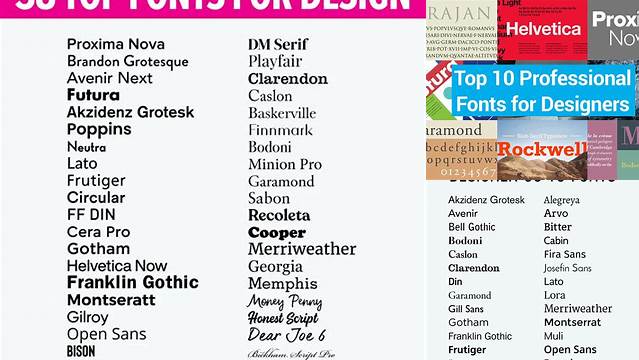
Top Fonts For Graphic Designers: Pro Guide
Choosing the right font is crucial for any graphic designer. The best fonts for graphic designers can elevate a design from good to outstanding. In this comprehensive guide, we'll explore a variety of fonts that are perfect for various design projects, ensuring you have the knowledge to make informed decisions.
1. Serif Fonts for Timeless Elegance
Serif fonts are characterized by the small decorative strokes (serifs) at the end of letters. These fonts often convey a sense of tradition, authority, and elegance. For graphic designers, understanding how to effectively use serif fonts is essential.
Choosing the Right Serif Font
Selecting the right serif font depends heavily on the project's overall tone and message. For instance, Times New Roman is a classic choice for formal documents, while Garamond offers a more refined, literary feel. Designers should consider the font's readability, especially in smaller sizes, and its compatibility with other design elements.
Best Uses of Serif Fonts
Serif fonts excel in print materials such as books, magazines, and newspapers due to their readability in large blocks of text. They are also suitable for creating logos and branding materials that require a touch of sophistication. When using serif fonts, pay attention to kerning and leading to ensure optimal readability and visual appeal. Graphic designers often use serif fonts to evoke trust and credibility.
Popular Serif Font Examples
Some popular serif fonts include:
- Times New Roman: A widely used and highly legible font.
- Garamond: Known for its elegance and readability.
- Georgia: Designed for screen readability, making it ideal for websites.
- Baskerville: A classic font that exudes sophistication.
- Palatino: A humanist serif font that combines readability with a touch of personality.
2. Sans-Serif Fonts for Modern Simplicity
Sans-serif fonts lack the decorative strokes found in serif fonts, giving them a cleaner, more modern appearance. These fonts are favored for their simplicity and readability, making them a staple in contemporary design. The best fonts for graphic designers often include a variety of sans-serif options.
Understanding Sans-Serif Typography
Sans-serif fonts are versatile and work well in a variety of applications, from web design to branding. They are particularly effective in digital environments where readability is paramount. Designers should be aware of the different styles within the sans-serif category, such as geometric, humanist, and grotesque, each offering a unique feel.
Effective Use in Design Projects
In web design, sans-serif fonts are commonly used for body text, navigation menus, and headings. They provide a clean and accessible reading experience, especially on screens with varying resolutions. For branding, sans-serif fonts can convey a sense of modernity, innovation, and clarity. It’s essential to choose a sans-serif font that aligns with the brand's personality and values.
Examples of Popular Sans-Serif Fonts
- Helvetica: A widely recognized and highly versatile font.
- Arial: A common and easily readable font.
- Futura: A geometric sans-serif font with a modern feel.
- Open Sans: Optimized for readability on screens.
- Roboto: A modern sans-serif font designed by Google, perfect for UI design.
3. Display Fonts for Unique Branding
Display fonts are designed to catch the eye and make a statement. They are often used for headlines, logos, and other prominent design elements where visual impact is crucial. The best fonts for graphic designers include a curated selection of display fonts to add personality to projects.
Characteristics of Effective Display Fonts
Effective display fonts are unique, memorable, and reflective of the brand's identity. They should be used sparingly to avoid overwhelming the design. Consider factors such as the font's weight, style, and overall visual impact when selecting a display font. Balance is key when incorporating these fonts into a design.
Applications in Branding and Advertising
Display fonts are ideal for branding because they help create a distinctive visual identity. They can be used in logos, website headers, and marketing materials to capture attention and convey a specific message. In advertising, display fonts can make a product or service stand out, encouraging engagement and recall.
Notable Display Font Choices
- Impact: A bold and attention-grabbing font.
- Cooper Black: A fun and retro-inspired font.
- Lobster: A script font with a vintage feel.
- Bebas Neue: A clean and modern sans-serif display font.
- Playfair Display: An elegant serif display font for headlines.
4. Script Fonts for Personal Touches
Script fonts mimic the look of handwriting, adding a personal and elegant touch to designs. These fonts can range from formal and calligraphic to playful and casual, making them versatile for various creative projects. For graphic designers, mastering the use of script fonts is essential.
Different Styles of Script Fonts
There are various styles of script fonts, including formal scripts (resembling traditional calligraphy), casual scripts (more relaxed and handwritten), and brush scripts (mimicking brush strokes). Each style offers a different aesthetic, so it’s crucial to choose one that aligns with the project’s tone and message.
Best Practices for Using Script Fonts
Script fonts are best used sparingly, typically for headings, invitations, or decorative elements. Overusing script fonts can reduce readability and detract from the overall design. Ensure the script font is legible and pair it with a simpler font for body text to create balance and visual harmony.
Popular Script Font Options
- Brush Script MT: A classic and widely recognized script font.
- Edwardian Script ITC: An elegant and formal script font.
- Pacifico: A casual and friendly script font.
- Great Vibes: A sophisticated script font for invitations.
- Allura: A modern script font with a natural flow.
5. Monospace Fonts for Coding and Technical Designs
Monospace fonts are characterized by each character occupying the same amount of horizontal space. This uniformity makes them ideal for coding, technical documentation, and designs that require a structured, consistent appearance. The best fonts for graphic designers sometimes include monospace options for specific projects.
Characteristics of Monospace Typography
The fixed-width nature of monospace fonts enhances readability in code editors and terminals, where alignment is crucial. While not typically used for body text in general design, monospace fonts can add a unique, technical aesthetic to certain projects. Graphic designers should consider the font's legibility and overall visual impact.
When to Use Monospace Fonts
Monospace fonts are commonly used in coding environments, command-line interfaces, and typewriting simulations. They can also be effective in designs that aim to convey a sense of precision, technology, or retro computing. Experiment with monospace fonts to create a distinctive look in your projects.
Monospace Font Recommendations
- Courier New: A standard monospace font often used in coding.
- Consolas: Designed for improved readability in code editors.
- Source Code Pro: A highly legible monospace font by Adobe.
- Roboto Mono: A modern and clean monospace font.
- Fira Mono: A popular open-source monospace font.
6. Geometric Fonts for Modern Aesthetics
Geometric fonts are based on simple geometric shapes, such as circles, squares, and triangles. This gives them a clean, modern, and minimalist appearance. They are often used in branding, logos, and designs that require a contemporary feel. The best fonts for graphic designers understand the power of geometric fonts in modern aesthetics.
Key Traits of Geometric Fonts
Geometric fonts are known for their precise and symmetrical forms. They exude a sense of order and efficiency, making them suitable for conveying a sense of innovation and clarity. Designers should consider the font's x-height, weight, and overall balance when incorporating geometric fonts into a design.
Applying Geometric Fonts in Design
These fonts work well in logos, website headers, and branding materials. They can also be used for body text, provided the font is legible at smaller sizes. Geometric fonts pair well with other clean, minimalist design elements. They are particularly effective in industries such as technology, finance, and architecture.
Popular Geometric Fonts
- Futura: A classic geometric sans-serif font.
- Avenir: A humanist geometric font with a modern feel.
- Circular: A popular choice for UI design and branding.
- Gotham: A versatile geometric font used by many brands.
- Montserrat: A geometric sans-serif font inspired by urban typography.
7. Humanist Fonts for Readability and Warmth
Humanist fonts are inspired by traditional calligraphy and handwriting, giving them a warm, approachable, and highly readable quality. They combine the structure of sans-serif fonts with the organic feel of serif fonts. The best fonts for graphic designers recognize humanist fonts for their unique balance.
Characteristics of Humanist Fonts
Humanist fonts are characterized by their subtle variations in stroke weight and their open, generous forms. They are designed to be easy on the eyes, making them ideal for extended reading. Designers should consider the font's overall character and how it contributes to the project's message.
Ideal Use Cases for Humanist Fonts
Humanist fonts are excellent for body text in books, magazines, and websites. They are also suitable for branding materials that require a friendly and approachable tone. They can be used in a variety of industries, including education, healthcare, and non-profit organizations.
Top Humanist Font Selections
- Open Sans: A widely used and highly readable humanist font.
- Roboto: A versatile humanist font designed by Google.
- Frutiger: A classic humanist font known for its clarity.
- Myriad: A humanist font with a modern and approachable feel.
- Verdana: Designed for on-screen readability.
8. Vintage Fonts for Retro Designs
Vintage fonts evoke a sense of nostalgia and history, making them perfect for designs that aim to capture a retro or classic aesthetic. These fonts often feature unique characteristics that reflect specific eras, such as the Art Deco period or mid-century modernism. The best fonts for graphic designers can skillfully incorporate vintage fonts into their work.
Key Elements of Vintage Fonts
Vintage fonts often include stylistic details such as distressed textures, ornate serifs, and unique letterforms. They can range from elegant and refined to bold and quirky, depending on the era they represent. Designers should consider the font's historical context and how it aligns with the overall design concept.
Incorporating Vintage Fonts into Projects
Vintage fonts are commonly used in branding for products and services that want to convey a sense of heritage or craftsmanship. They can also be effective in posters, packaging, and editorial designs that aim to create a nostalgic atmosphere. Pair vintage fonts with complementary design elements to enhance the retro feel.
Recommended Vintage Fonts
- Playfair Display: An elegant serif font with a vintage touch.
- Bebas Neue: A clean sans-serif font that works well in retro designs.
- Lobster: A script font with a vintage aesthetic.
- Raleway: A versatile font that can be used in various vintage-inspired designs.
- ChunkFive: A bold slab-serif font perfect for vintage posters.
9. Slab Serif Fonts for Bold Statements
Slab serif fonts are characterized by their thick, block-like serifs, giving them a bold and sturdy appearance. These fonts are often used to make strong statements and convey a sense of authority and reliability. The best fonts for graphic designers utilize slab serif fonts to create impactful designs.
Distinctive Features of Slab Serif Fonts
The heavy serifs of slab serif fonts make them highly legible, even at smaller sizes. They are often used in headlines, logos, and other prominent design elements where visual impact is crucial. Designers should consider the font's weight and overall balance when incorporating slab serif fonts into a design.
Best Use Cases for Slab Serif Fonts
Slab serif fonts are ideal for branding materials that require a sense of strength and stability. They can also be effective in posters, packaging, and editorial designs that aim to capture attention and convey a clear message. These fonts are commonly used in industries such as construction, manufacturing, and agriculture.
Top Slab Serif Font Choices
- Roboto Slab: A modern and versatile slab serif font.
- ChunkFive: A bold and attention-grabbing slab serif font.
- Arvo: A geometric slab serif font with a modern feel.
- Rockwell: A classic slab serif font with a strong presence.
- Courier Prime: A typewriter-style slab serif font.
10. Calligraphy Fonts for Artistic Flair
Calligraphy fonts mimic the elegant strokes of traditional calligraphy, adding an artistic and refined touch to designs. These fonts are perfect for projects that require a sense of sophistication, such as invitations, wedding stationery, and branding materials. The best fonts for graphic designers understand how to leverage calligraphy fonts to create visually stunning designs.
Understanding Calligraphy Font Styles
Calligraphy fonts range from formal and ornate to casual and flowing, each offering a unique aesthetic. Formal calligraphy fonts are ideal for elegant events, while casual calligraphy fonts are suitable for more relaxed and personal projects. Designers should choose a calligraphy font that aligns with the project’s overall tone and message.
Integrating Calligraphy Fonts into Designs
Calligraphy fonts are best used sparingly, typically for headings, subheadings, or decorative elements. Overusing calligraphy fonts can reduce readability and detract from the overall design. Ensure the calligraphy font is legible and pair it with a simpler font for body text to create balance and visual harmony.
Popular Calligraphy Font Suggestions
- Brush Script MT: A widely recognized and classic calligraphy font.
- Edwardian Script ITC: An elegant and formal calligraphy font.
- Great Vibes: A sophisticated calligraphy font for invitations.
- Allura: A modern calligraphy font with a natural flow.
- Kalam: A casual and handwritten-style calligraphy font.
11. Best Fonts for Logo Design
Logos are the face of a brand, and choosing the right font is critical for creating a lasting impression. The best fonts for graphic designers to use for logo design are those that are legible, memorable, and reflective of the brand’s identity. Consider factors such as the font's weight, style, and overall visual impact when selecting a logo font.
12. Top Fonts for Web Design
Web design requires fonts that are readable on screens of various sizes and resolutions. The best fonts for graphic designers for web design are those that are optimized for on-screen readability, ensuring a seamless user experience. Common choices include Open Sans, Roboto, and Arial.
13. Best Fonts for Print Design
Print design offers a different set of considerations compared to web design. The best fonts for graphic designers for print design are those that maintain their clarity and readability when printed, such as Times New Roman, Garamond, and Baskerville.
14. Popular Fonts for UI/UX Design
UI/UX design demands fonts that are both functional and aesthetically pleasing. The best fonts for graphic designers for UI/UX design provide a clean and accessible reading experience, often including Roboto, Open Sans, and Montserrat.
15. Free Fonts vs. Premium Fonts
When selecting fonts, graphic designers often weigh the pros and cons of free versus premium options. The best fonts for graphic designers aren’t always premium; many high-quality free fonts are available, while premium fonts often offer unique features and broader licensing terms.
16. Pairing Fonts Effectively
Combining different fonts can add depth and visual interest to a design, but it’s essential to do it effectively. The best fonts for graphic designers are paired thoughtfully, creating a harmonious balance between contrasting styles, such as combining a serif font with a sans-serif font.
17. Font Licensing Explained
Understanding font licensing is crucial for graphic designers to avoid legal issues. The best fonts for graphic designers are used in compliance with their respective licenses, which dictate how the font can be used, whether for personal or commercial projects.
18. Font Management Tips
Managing fonts efficiently can save time and improve workflow. The best fonts for graphic designers are organized and easily accessible through font management tools, ensuring consistency across projects.
19. The Future of Font Design
Font design is constantly evolving, with new technologies and trends shaping the future. The best fonts for graphic designers will adapt to these changes, embracing variable fonts, AI-driven designs, and other innovations.
20. Trending Fonts in 2024
Staying updated with current trends is essential for graphic designers. The best fonts for graphic designers in 2024 reflect contemporary aesthetics, including geometric sans-serifs, retro-inspired fonts, and unique display faces.
21. Fonts for Branding Consistency
Maintaining brand consistency requires careful font selection. The best fonts for graphic designers for branding are those that align with the brand's identity and are used consistently across all materials.
22. How Fonts Influence Perception
Fonts can significantly impact how a message is perceived. The best fonts for graphic designers are chosen strategically to evoke specific emotions and convey the desired tone.
23. Mastering Typography Basics
A strong understanding of typography is fundamental for graphic designers. The best fonts for graphic designers are used in conjunction with proper kerning, leading, and other typographic principles to enhance readability and visual appeal.
24. Font Accessibility Considerations
Ensuring font accessibility is crucial for inclusive design. The best fonts for graphic designers are selected with consideration for users with visual impairments, ensuring legibility and readability.
25. Best Resources for Font Inspiration
Finding inspiration is essential for graphic designers. The best fonts for graphic designers are discovered through various resources, including font foundries, design blogs, and online communities.
26. The Psychology of Fonts
Fonts evoke different emotions and associations. The best fonts for graphic designers are chosen based on their psychological impact, aligning with the desired message and brand identity.
27. Fonts for Minimalist Designs
Minimalist designs require clean and simple fonts. The best fonts for graphic designers for minimalist projects are often geometric sans-serifs or clean humanist fonts.
28. Fonts for Maximalist Designs
Maximalist designs embrace bold and expressive fonts. The best fonts for graphic designers for maximalist projects include display fonts, vintage fonts, and other unique typefaces.
29. Best Font Combinations for Business Cards
Business cards require legible and professional font combinations. The best fonts for graphic designers for business cards balance readability with visual appeal, often pairing a serif and sans-serif font.
30. The Impact of Font Size on Readability
Font size significantly affects readability. The best fonts for graphic designers are used at appropriate sizes to ensure a comfortable reading experience, whether in print or on screen.